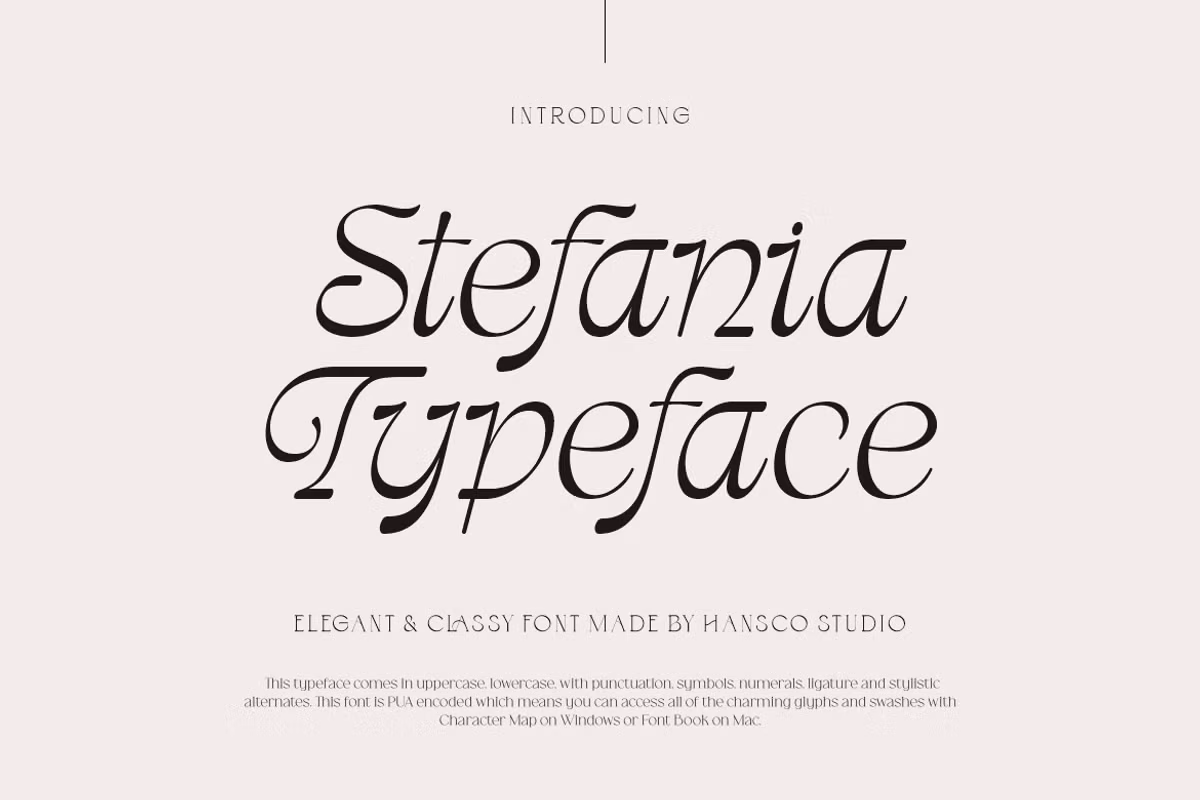
Stefania Font Free Download is a classy and elegant serif typeface designed to bring a luxurious, refined touch to your typography. With its graceful curves, high-contrast strokes, and timeless style, Stefania is ideal for fashion branding, wedding invitations, upscale packaging, magazine titles, and premium logos.
Crafted with a perfect blend of modern sophistication and vintage flair, Stefania includes uppercase and lowercase letters, numerals, punctuation, and stunning ligatures—allowing for beautifully flowing, custom-looking typography in both print and digital formats.
Whether you’re creating a high-end brand identity or designing an elegant editorial layout, Stefania Font Free Download delivers polished style and elevated character. Use it for personal or preview purposes, and remember to purchase the correct license for any commercial use. Make a bold, classy statement with the timeless beauty of Stefania Font.